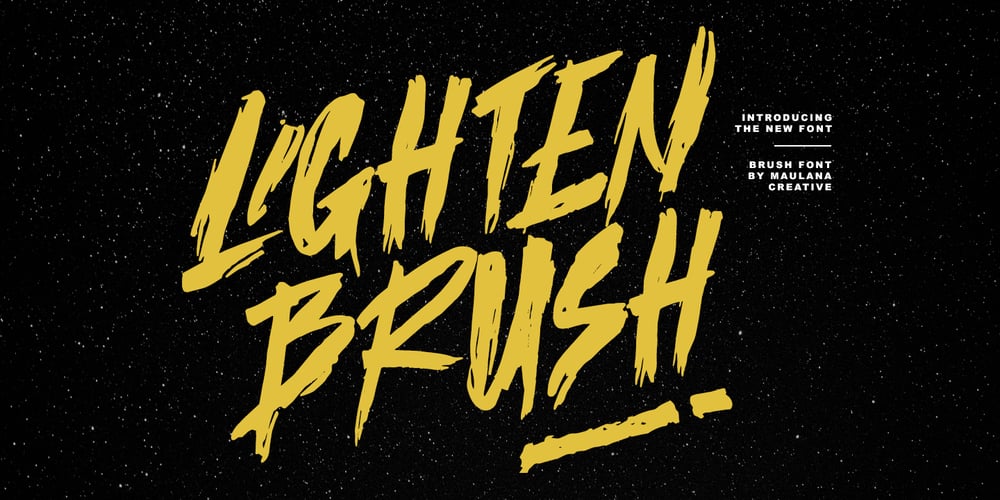
MC Lighten Font Family was designed by Gilang Maulana and published by Maulana Creative. MC Lighten contains 1 styles and family package options. Give your designs an authentic brush handcrafted feel. “ Lighten” is perfectly suited to signature, stationery, logo, typography quotes, website header, branding and more.Thanks for use this font.Maulana Creative